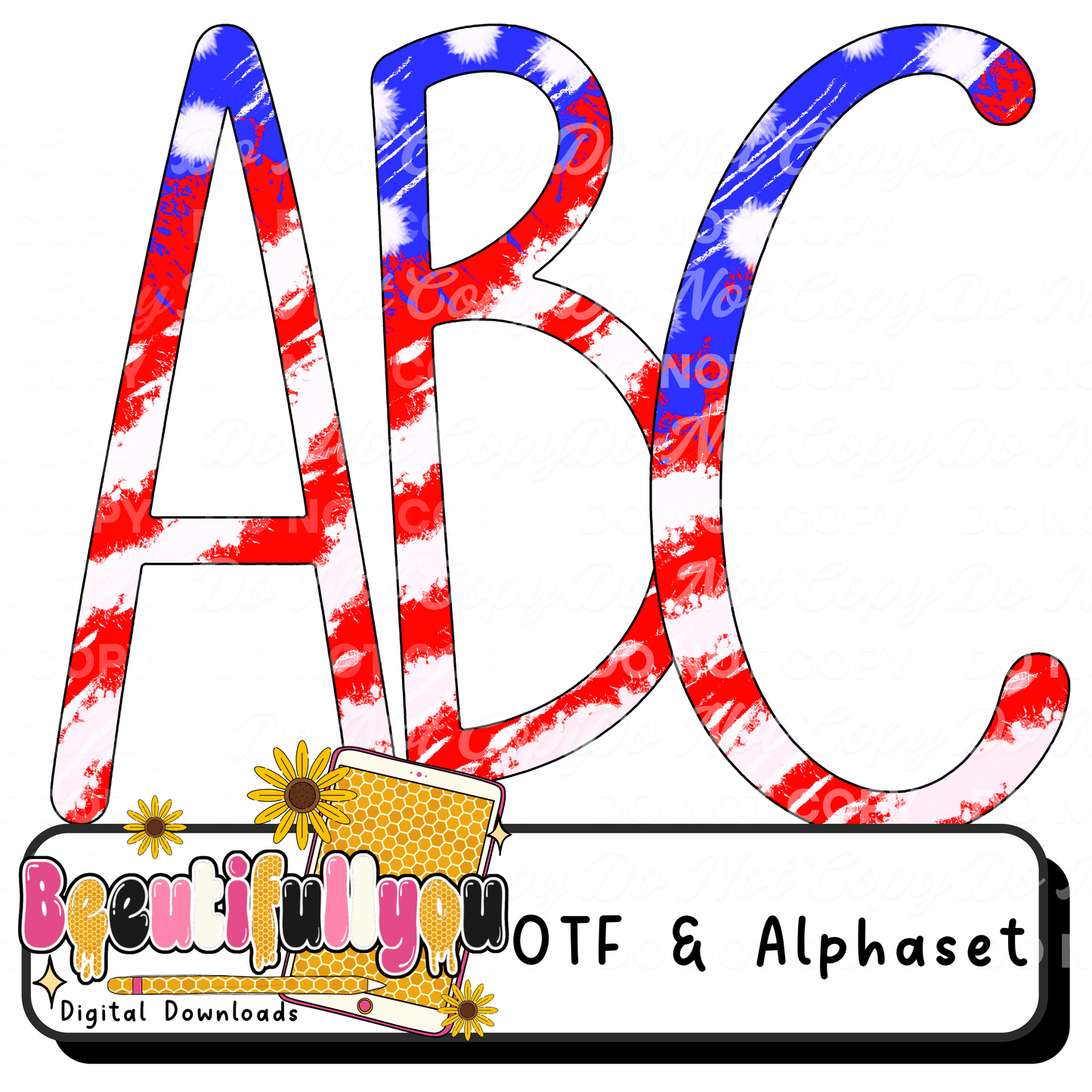
Patriotic Alphabet PNG & OTF Font | Red White Blue Letter Set | 4th of July Font | Commercial Use Alphabet Bundle
🇺🇸 Create your own patriotic designs with this bold red, white & blue alphabet set!
This bundle includes a full alphabet + font file, perfect for making custom names, phrases, and 4th of July designs with ease ✨
Designed with a fun painted/brushstroke flag style — this set is PERFECT for summer drops, holidays, and custom orders 🔥
✔ Trendy patriotic style